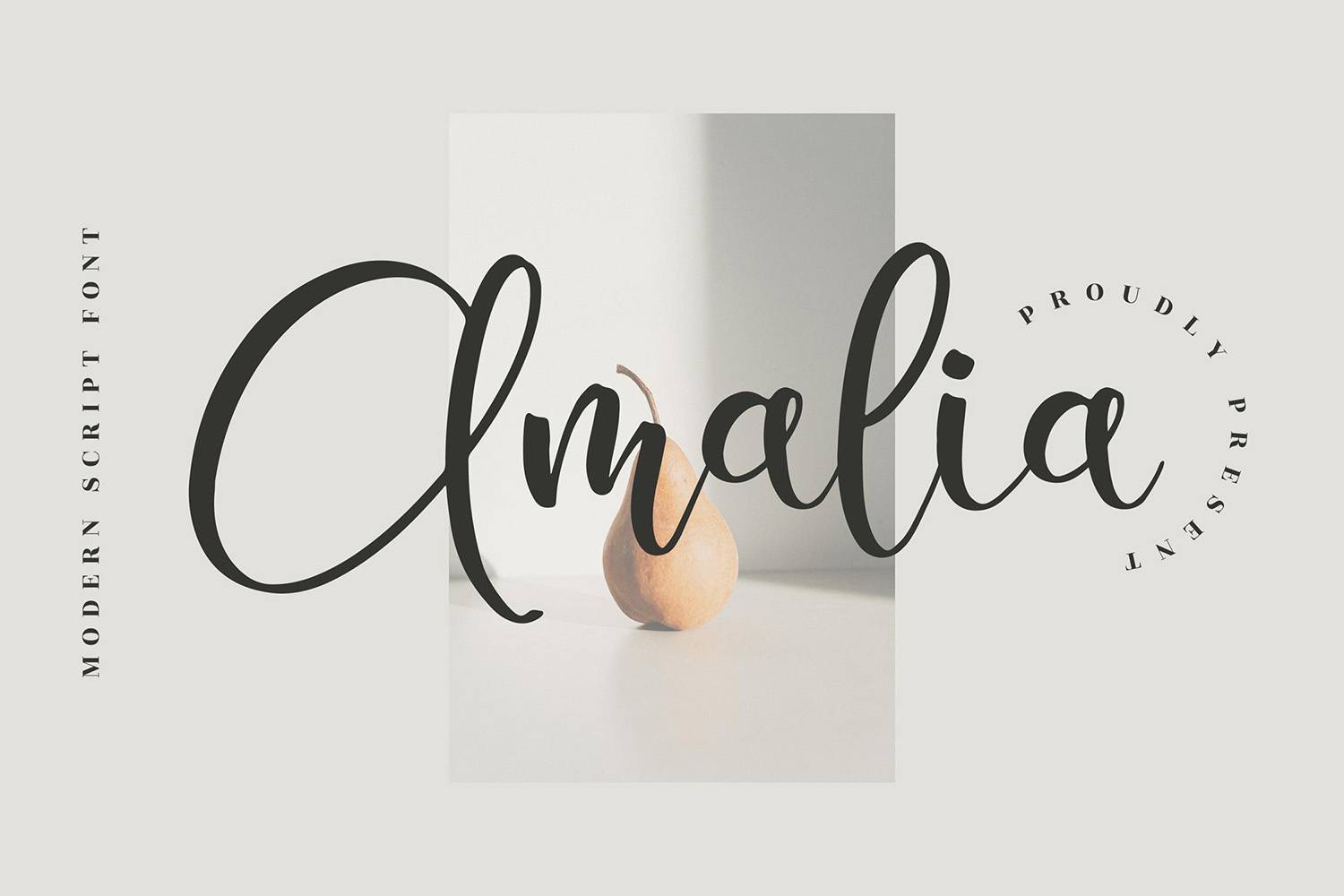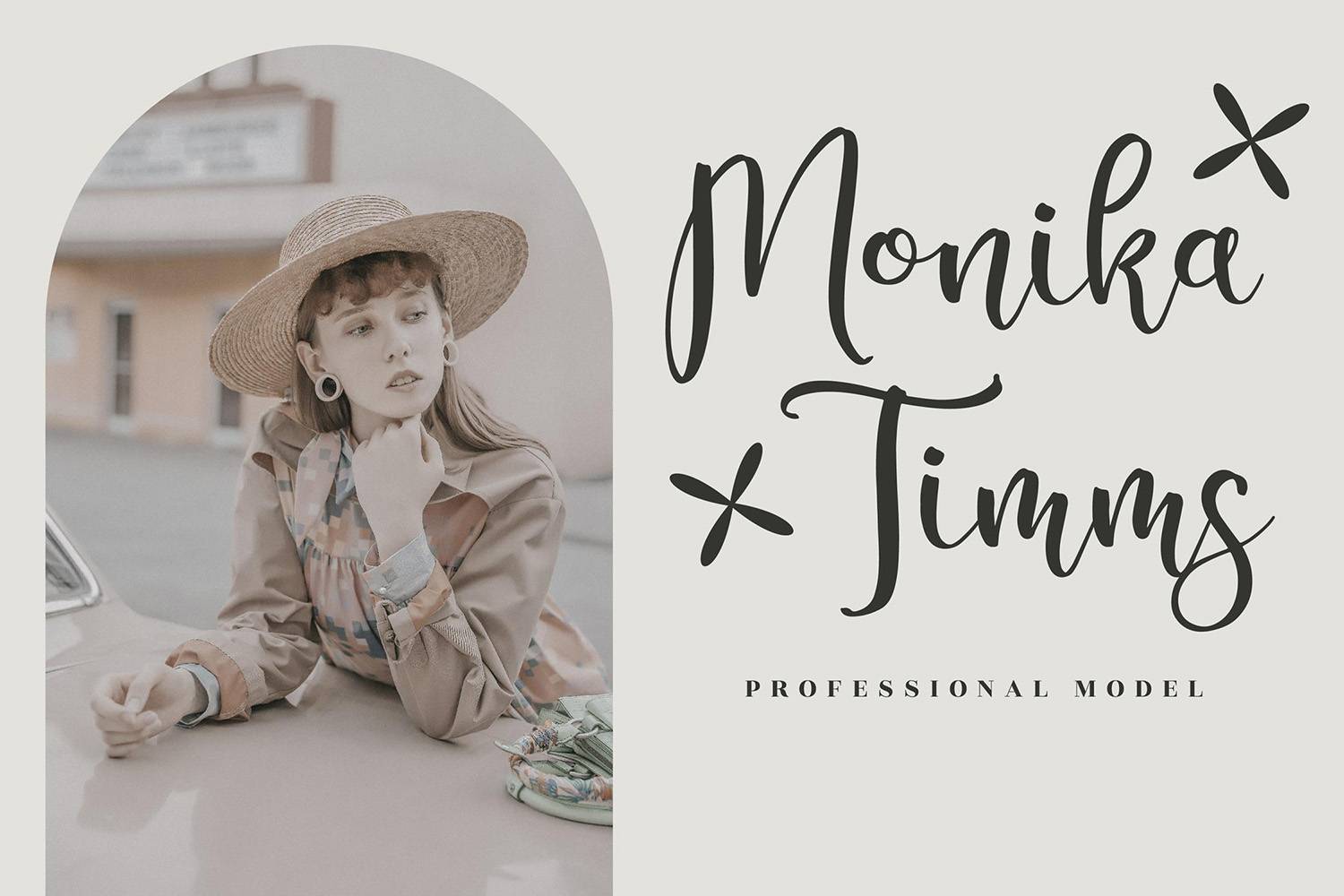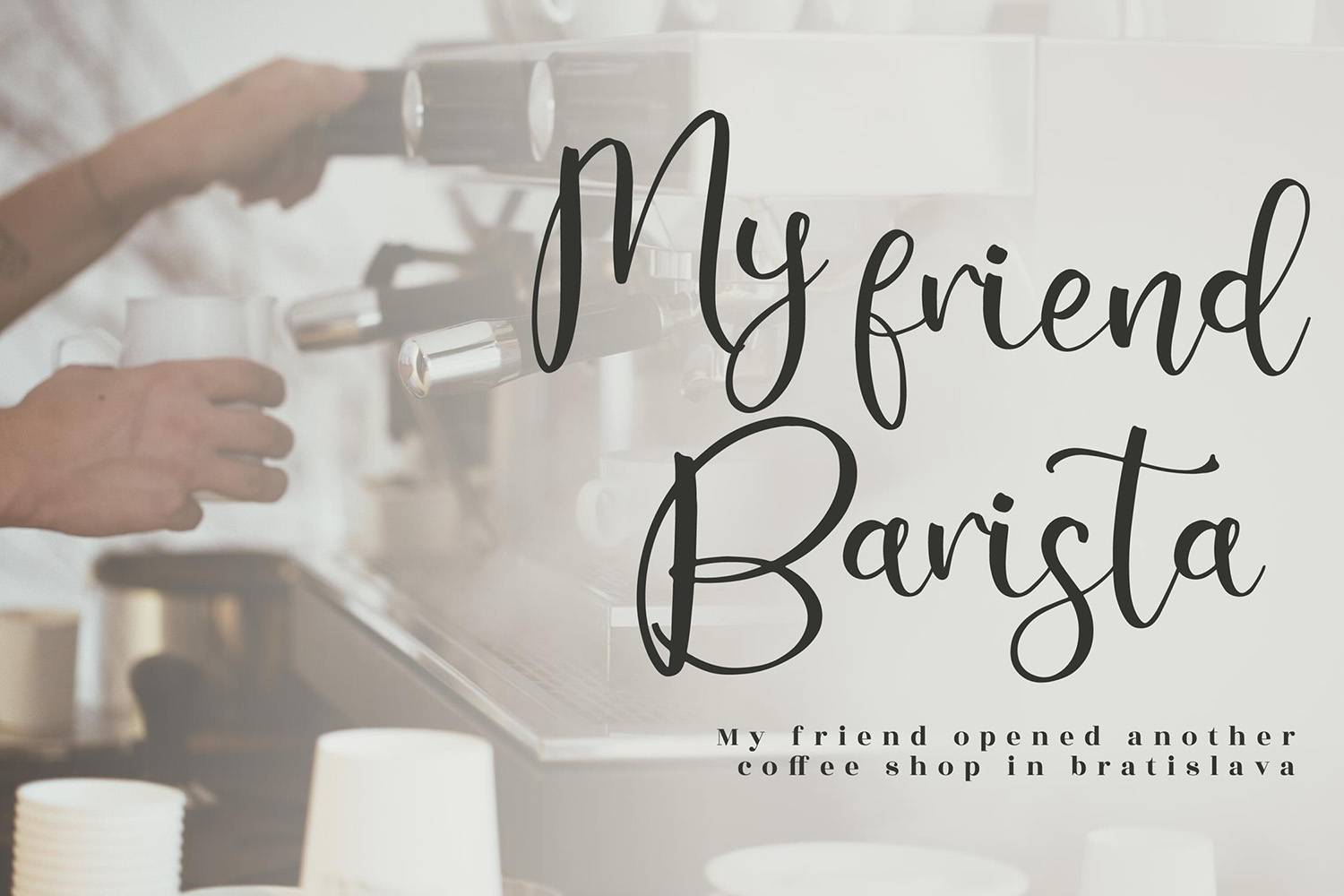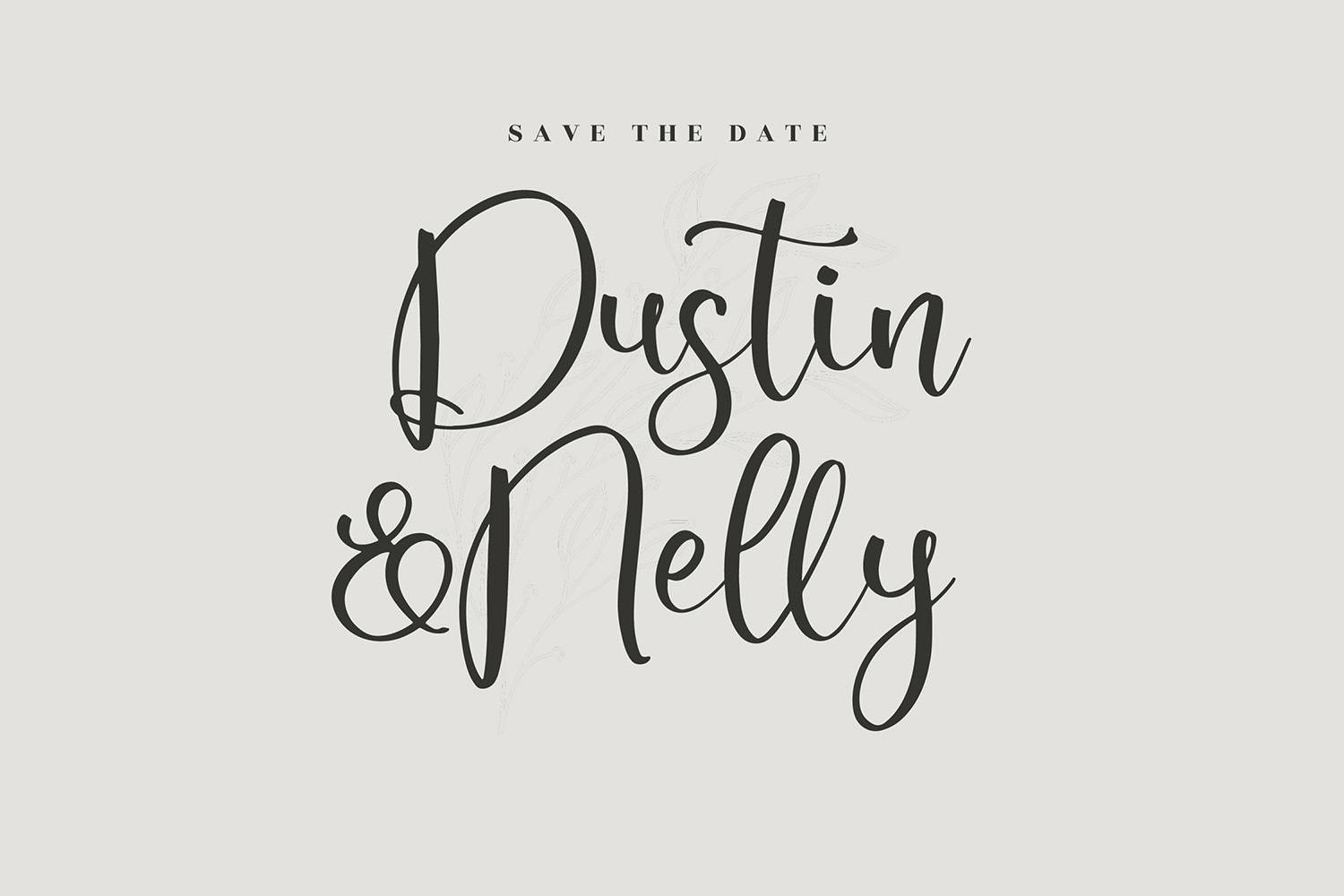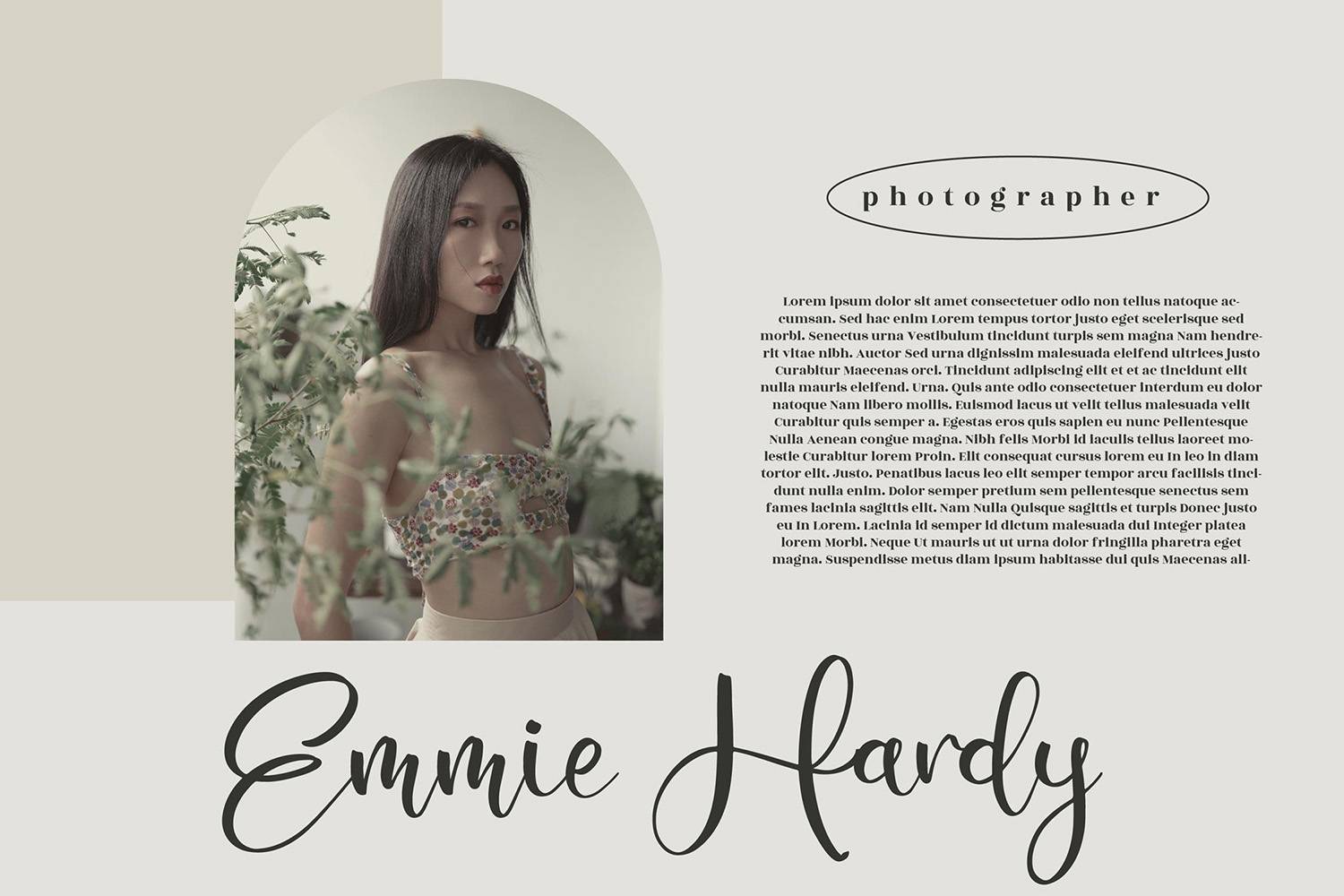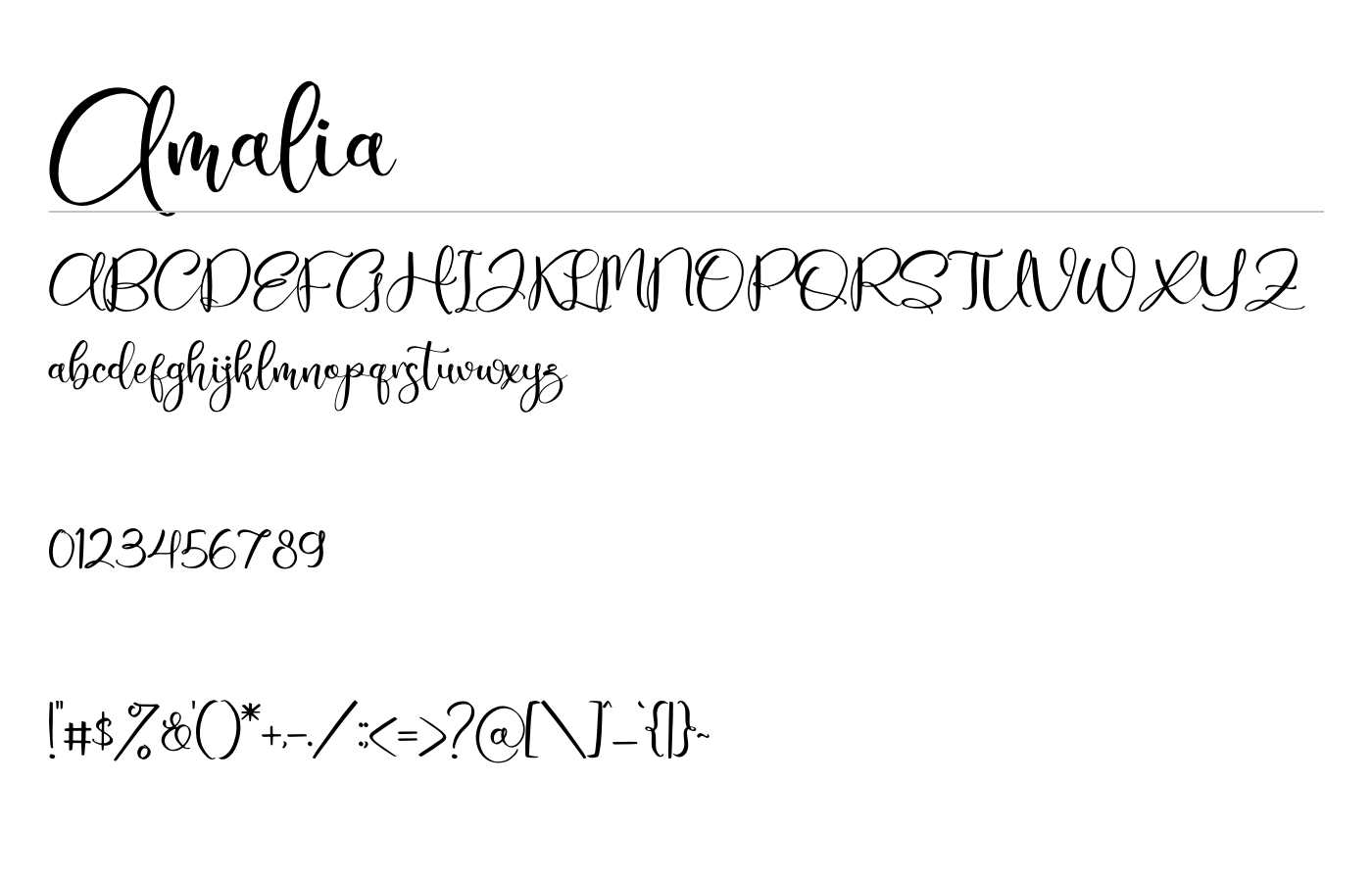
Amalia is an elegant script font characterized by its flowing, delicate strokes and graceful curves that give it a handcrafted, calligraphic feel. With its playful yet refined letterforms and moderate contrast, it works beautifully for invitations, branding, and any design that seeks a feminine, romantic, or sophisticated touch. This font shines in headlines, logos, and design projects that benefit from a personal and artistic style.
Amalia Font
About Amalia Font